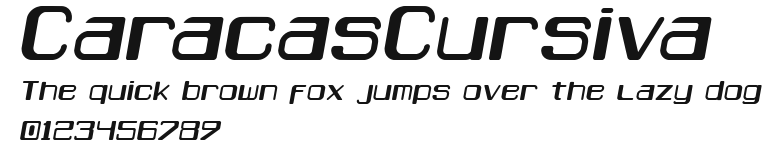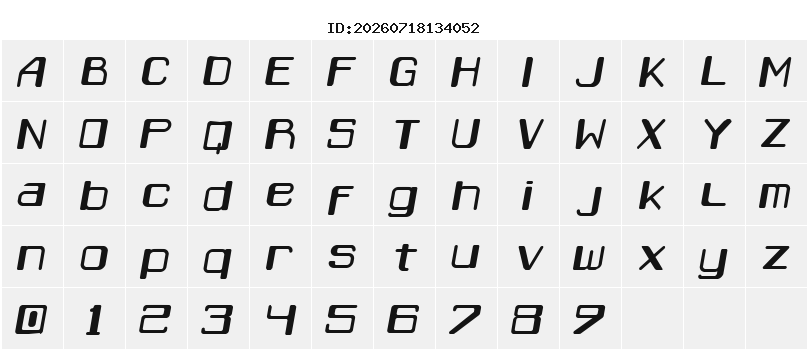
• Font Name: CaracasCursiva
About CaracasCursiva.ttf
CaracasCursiva.ttf is a modern, elegant sans-serif font designed for ultimate readability and visual harmony. Perfect for branding, headlines, web design, and print materials.